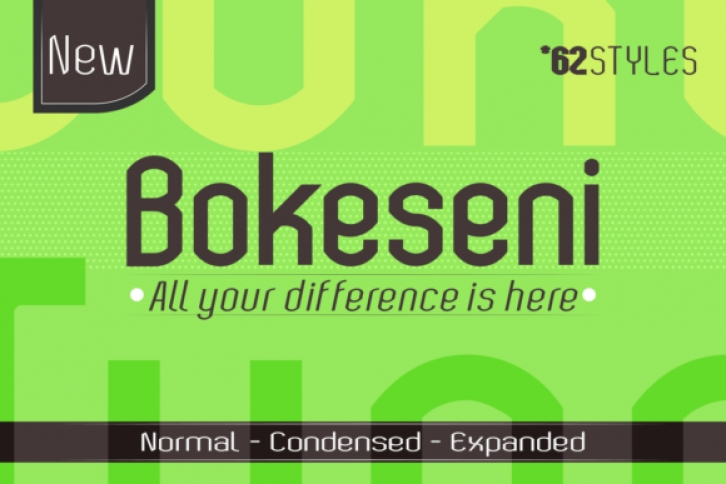
Bokeseni looks bold, yet sophisticated and features chunky and extended characters that will look particularly adept when used in logos, branding, packaging design, and much more. This masterfully designed sans serif font is a true must-have.